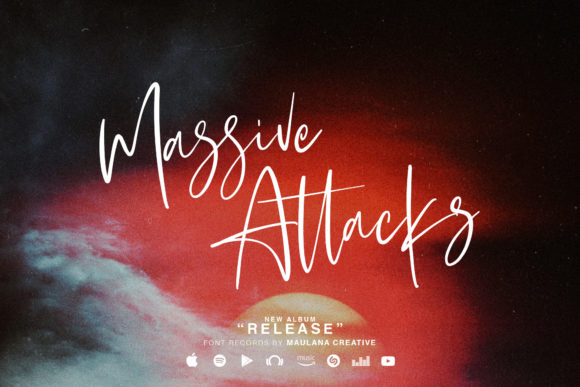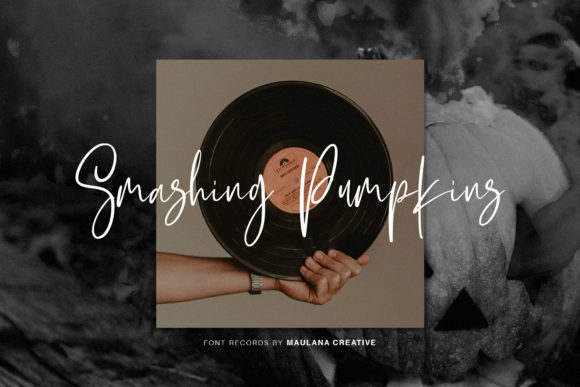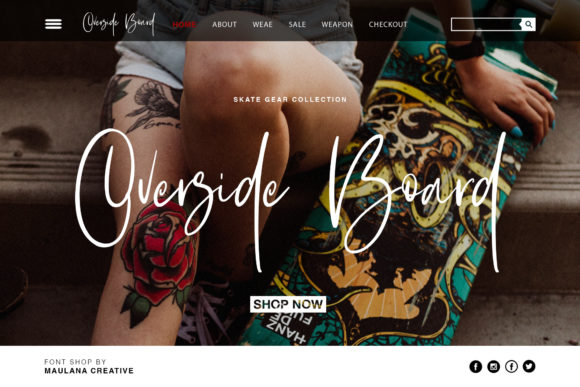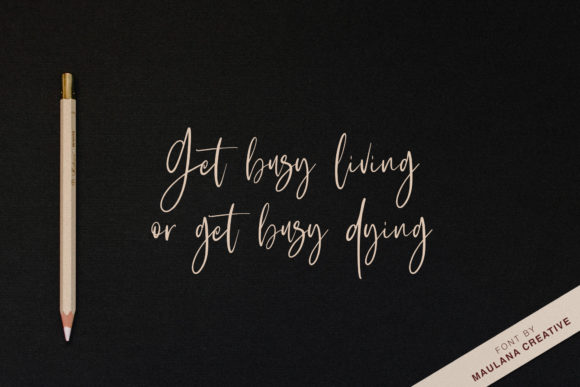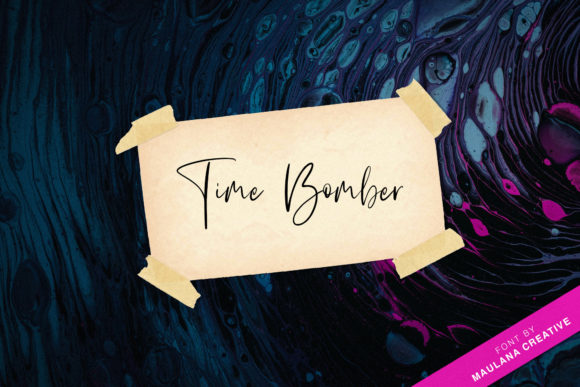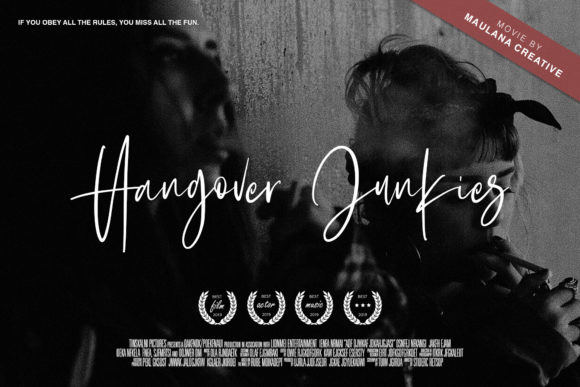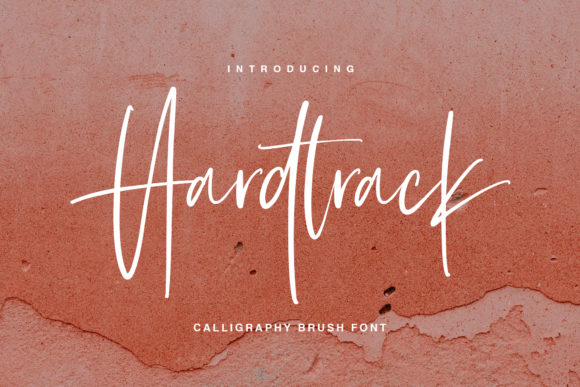
Discover the Authentic Handwritten Feel of Hardtrack Font
Are you looking for a font that adds a personal touch to your projects? Do you want to give your designs a unique, handwritten feel that sets them apart from the rest? Look no further than Hardtrack Font. With its contemporary charm and authentic, hand-crafted aesthetic, Hardtrack is the ideal choice for designers and crafters who want to add a touch of personality to their work.
What is Hardtrack Font?
Hardtrack Font is a carefully crafted typeface that is designed to mimic the look and feel of handwritten text. Its unique, irregular strokes and subtle imperfections give it a distinctly human feel that is perfect for adding a personal touch to your designs. Whether you’re working on a logo, a poster, or a digital project, Hardtrack Font is the perfect choice for creating a distinctive and eye-catching look.
The Benefits of Using Hardtrack Font
So why choose Hardtrack Font for your next project? Here are just a few of the benefits of using this versatile and stylish typeface:
• Authentic Handwritten Feel: Hardtrack Font is designed to capture the essence of handwritten text, with its irregular strokes and subtle imperfections giving it a uniquely human feel.
• Contemporary Charm: Despite its handmade aesthetic, Hardtrack Font has a distinctly modern feel that makes it perfect for a wide range of design applications.
• Versatility: Whether you’re working on a logo, a poster, or a digital project, Hardtrack Font is the perfect choice for creating a distinctive and eye-catching look.
• Ease of Use: Hardtrack Font is easy to use and can be easily integrated into your design workflow, making it perfect for designers of all skill levels.
How to Use Hardtrack Font in Your Designs
Using Hardtrack Font in your designs is easy. Here are a few tips to get you started:
• Pair it with Other Fonts: Hardtrack Font pairs well with a wide range of other fonts, making it easy to create visually interesting and dynamic designs.
• Experiment with Different Sizes: Hardtrack Font looks great in a variety of sizes, from large headings to smaller body text.
• Add a Personal Touch: Use Hardtrack Font to add a personal touch to your designs, whether it’s a handwritten note or a unique logo.
Who is Hardtrack Font for?
Hardtrack Font is perfect for a wide range of designers and crafters, including:
• Graphic Designers: Whether you’re working on a logo, a poster, or a digital project, Hardtrack Font is a great choice for adding a personal touch to your designs.
• Crafters: If you’re a crafter looking for a font that captures the essence of handmade text, Hardtrack Font is the perfect choice.
• Digital Artists: Hardtrack Font is a great choice for digital artists looking to add a unique and eye-catching element to their work.
In conclusion, Hardtrack Font is the ideal choice for designers and crafters who want to add a personal touch to their projects. With its authentic, handwritten feel and contemporary charm, Hardtrack Font is perfect for a wide range of design applications. Whether you’re working on a logo, a poster, or a digital project, Hardtrack Font is the perfect choice for creating a distinctive and eye-catching look. So why wait? Download Hardtrack Font today and start adding a personal touch to your designs.